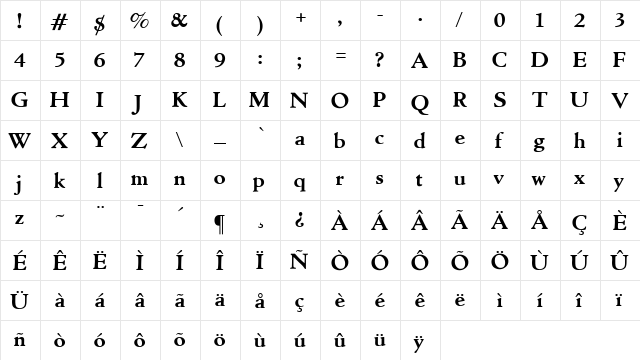
Cloister Regular
Design Context for Cloister Typeface
Cloister takes a measured approach to typography — its balanced proportions and neutral character make it a reliable workhorse for both digital and print work.